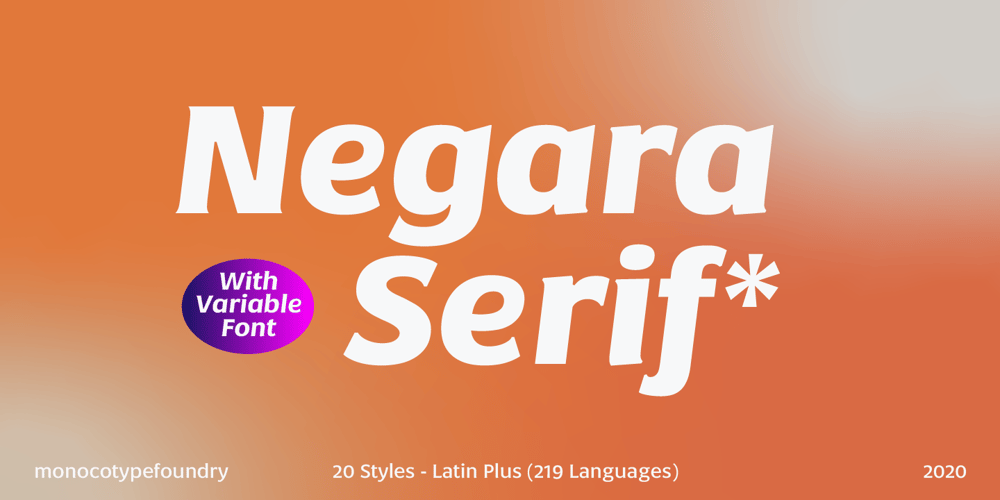
Negara Serif
Negara Serif font
Negara Serif Font Family was designed by Abdurrahman Hanif and published by Monoco Type. Negara Serif contains 21 styles and family package options. Negara Serif is typeface that have classic and elegant vibe, designed for any headline and short paragraph use. Featured with Latin Plus that have include 219 Language support so it will usable in wide range country, Beside latin there is Cyrillic Support in Negara Serif. You can see more about this font usage and feature in the preview image. [New Update with Variable Font File available to purchase]